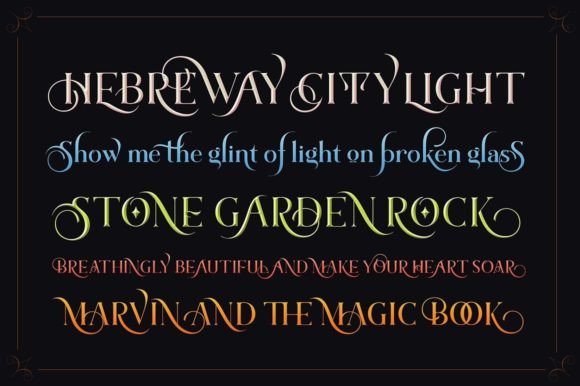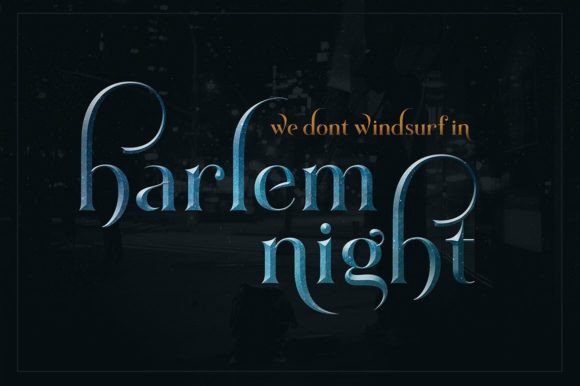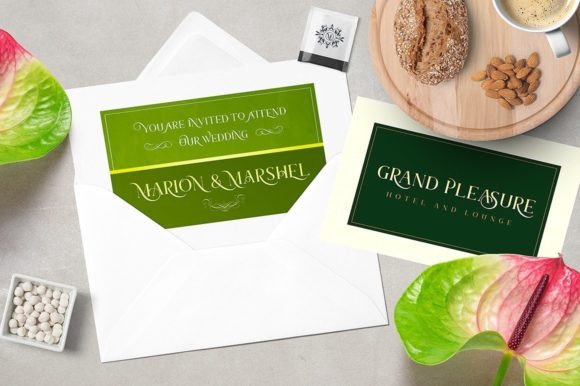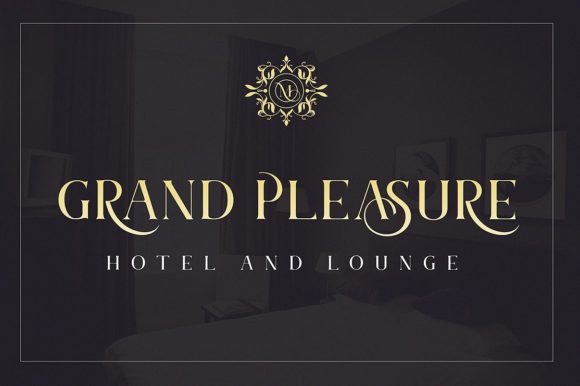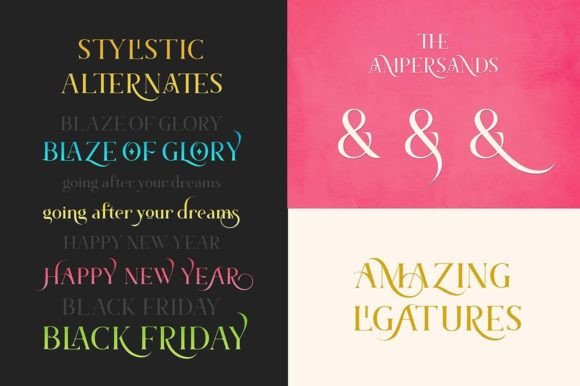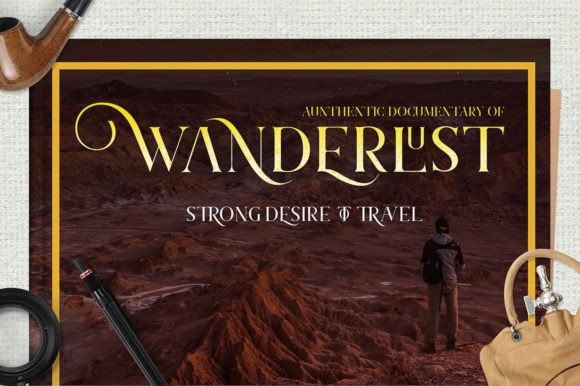
Marschel Pro Font
Marschel Pro is a stylish and elegant display font. No matter the topic, this font will be an incredible asset to your fonts’ library, as it has the potential to elevate any creation.